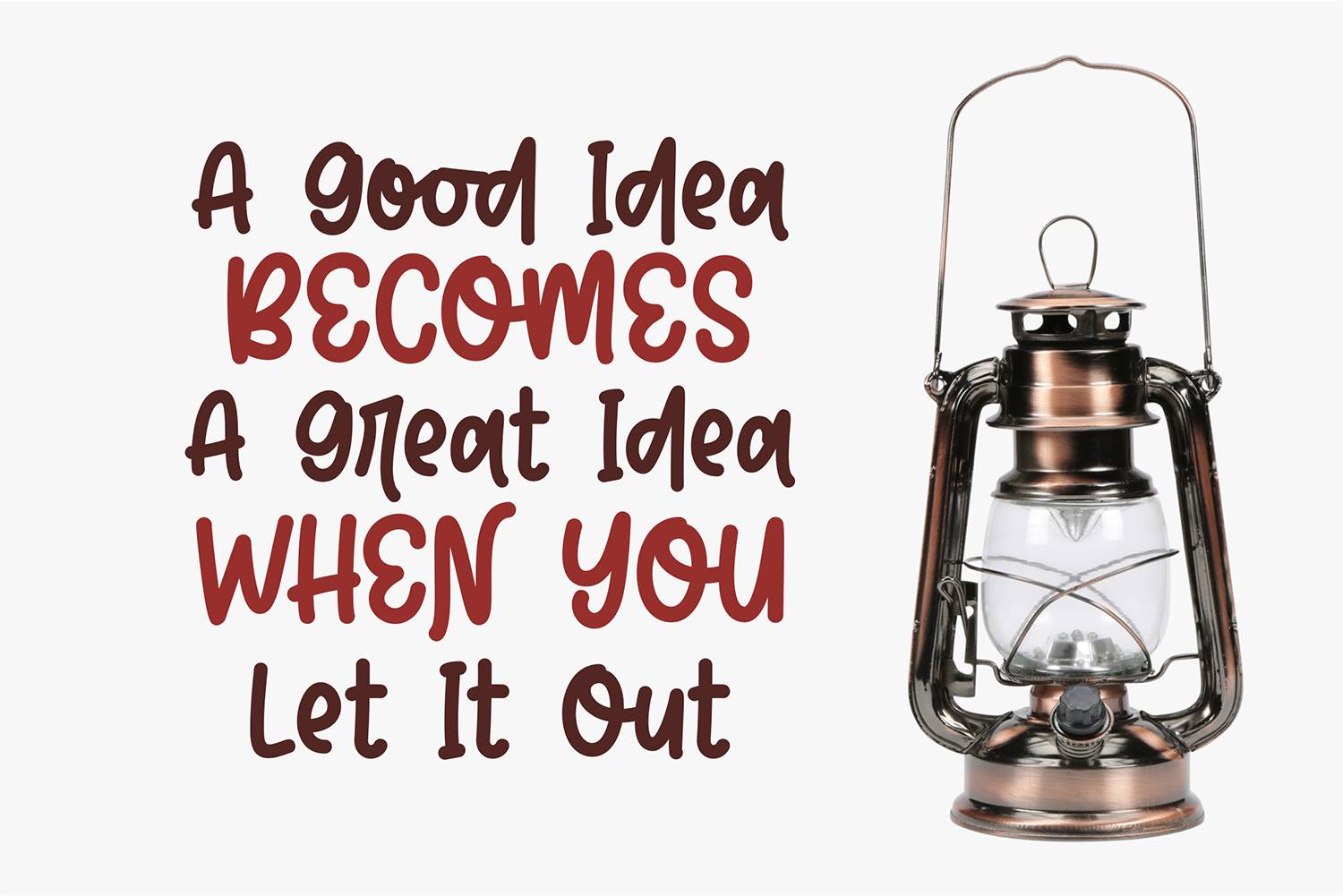
Barryone is a playful and friendly handwritten sans-serif font characterized by its rounded, casual strokes and moderately high x-height, making it highly readable. Its lively letterforms with unique loops and curls bring a warm, approachable feel ideal for creative, informal branding, children's books, and fun packaging. This font works best in headlines and logos where a personal, cheerful touch is desired.
Barryone Font
About Barryone Font
| Font family | Barryone Font |
| Designer | Awan Senja Team |